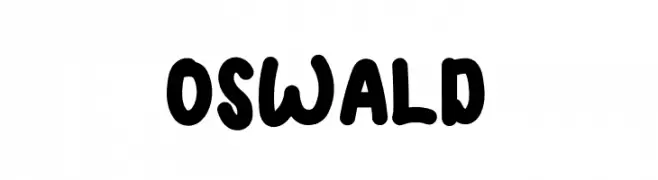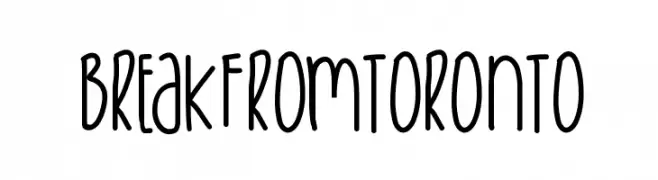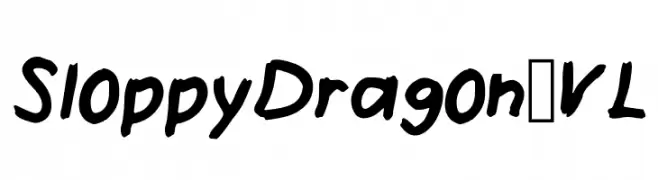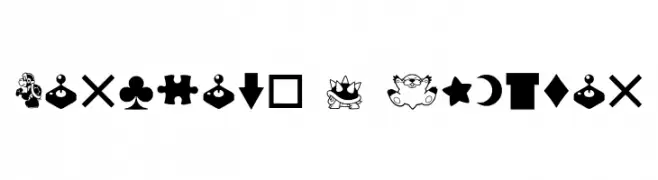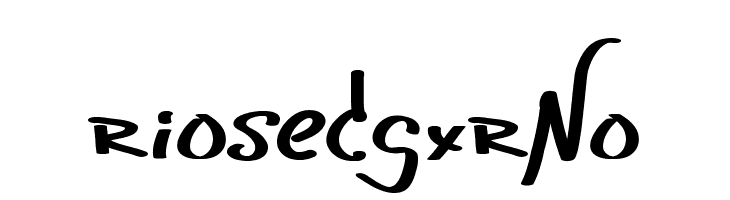
A bold, italic typeface with dynamic, slanted characters and strong visual impact.
A bold, playful font with rounded edges and a whimsical style.
A playful, hand-drawn font with a whimsical and informal style.
A playful, hand-drawn font with tall, narrow characters and a monoline style.
A serif font with italic styling and shadow effect, offering elegance and readability.
A bold, 3D geometric font with a futuristic and dynamic style.
A bold, playful handwritten font with dynamic strokes and a casual feel.
A decorative font with iconic video game symbols and characters.